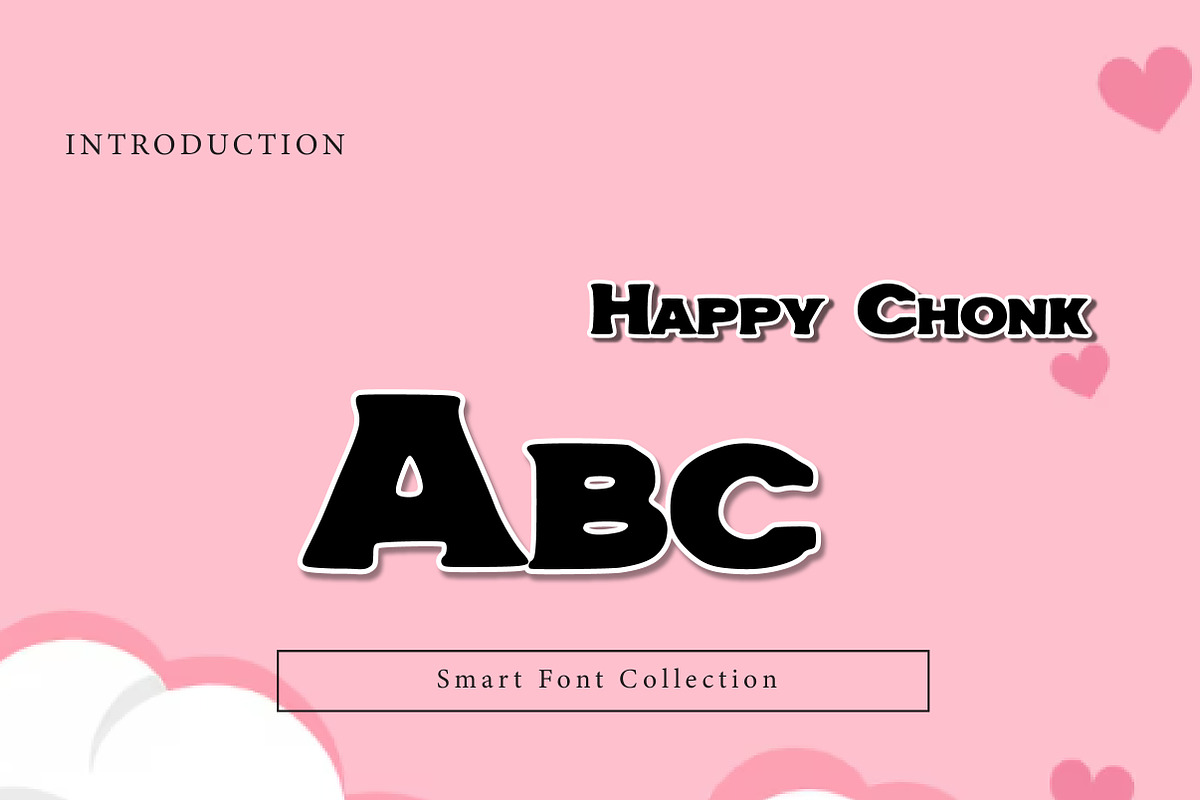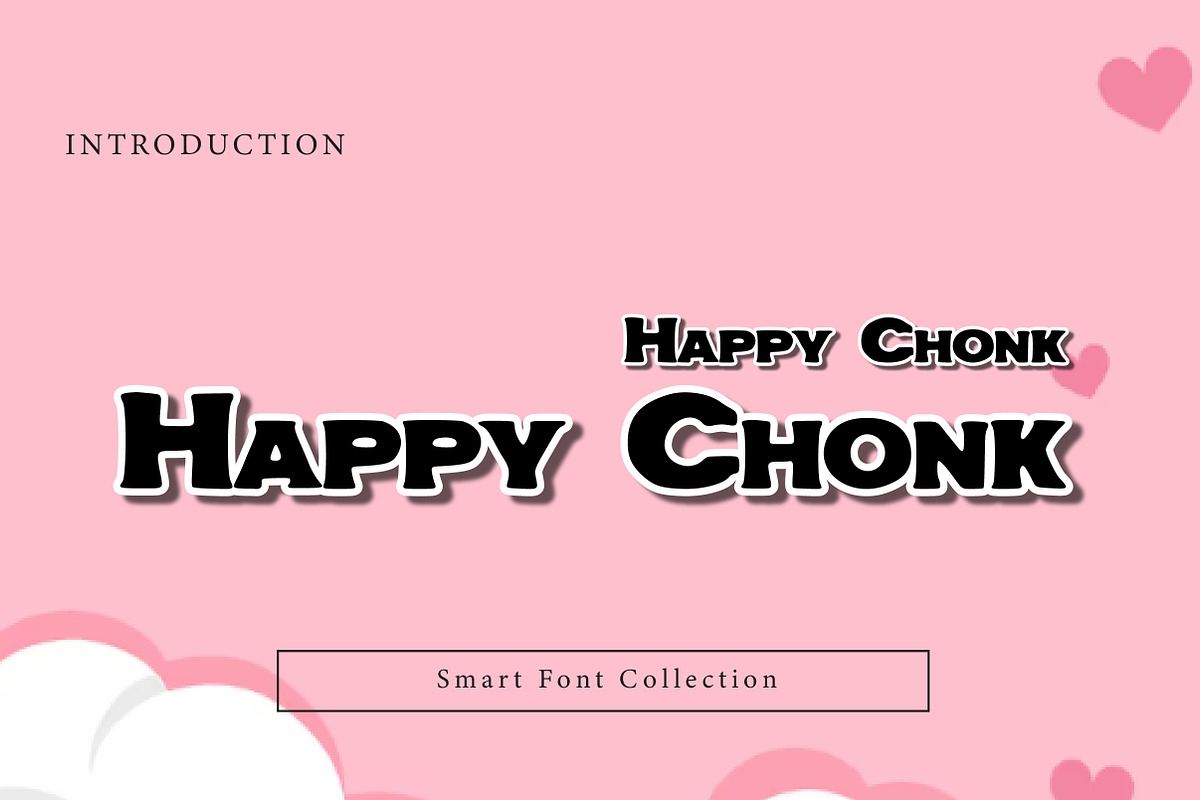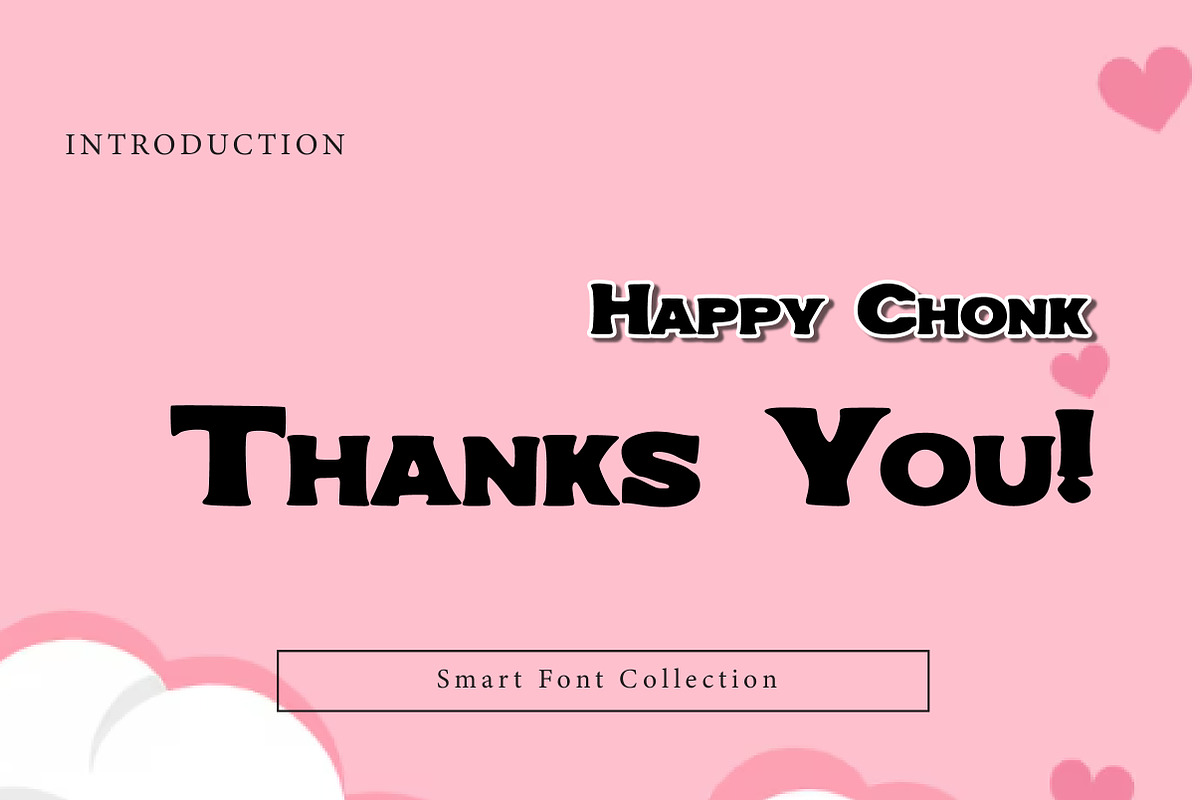
Happy Chonk
Happy Chonk is a bold, chunky, and cheerful display font designed to bring fun energy and a friendly personality to your typography. With its thick letterforms, soft curves, and playful cartoon-style vibe, this font is perfect for designs that need to feel happy, cute, and eye-catching.
Built for strong readability and high impact, Happy Chonk works beautifully for kids branding, posters, playful logos, sticker designs, product packaging, social media content, t-shirt prints, and fun headline typography. Its chubby and rounded shapes give it a warm, lovable look that instantly makes designs feel more joyful and approachable.
Whether you're creating a kids product label, a party poster, a toy brand logo, a fun quote design, or a colorful YouTube thumbnail, Happy Chonk delivers bold typography that stands out with charm. It performs best at display sizes where the chunky shapes can shine and bring the full playful mood to your design.